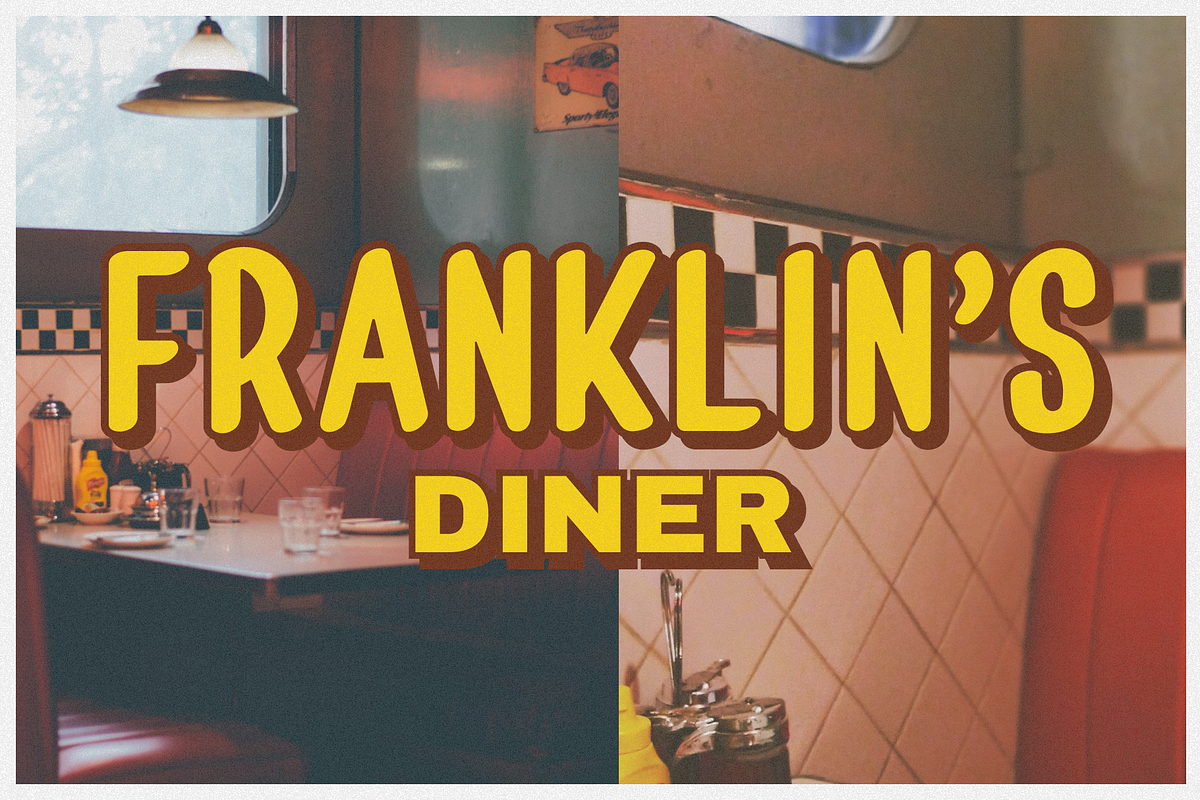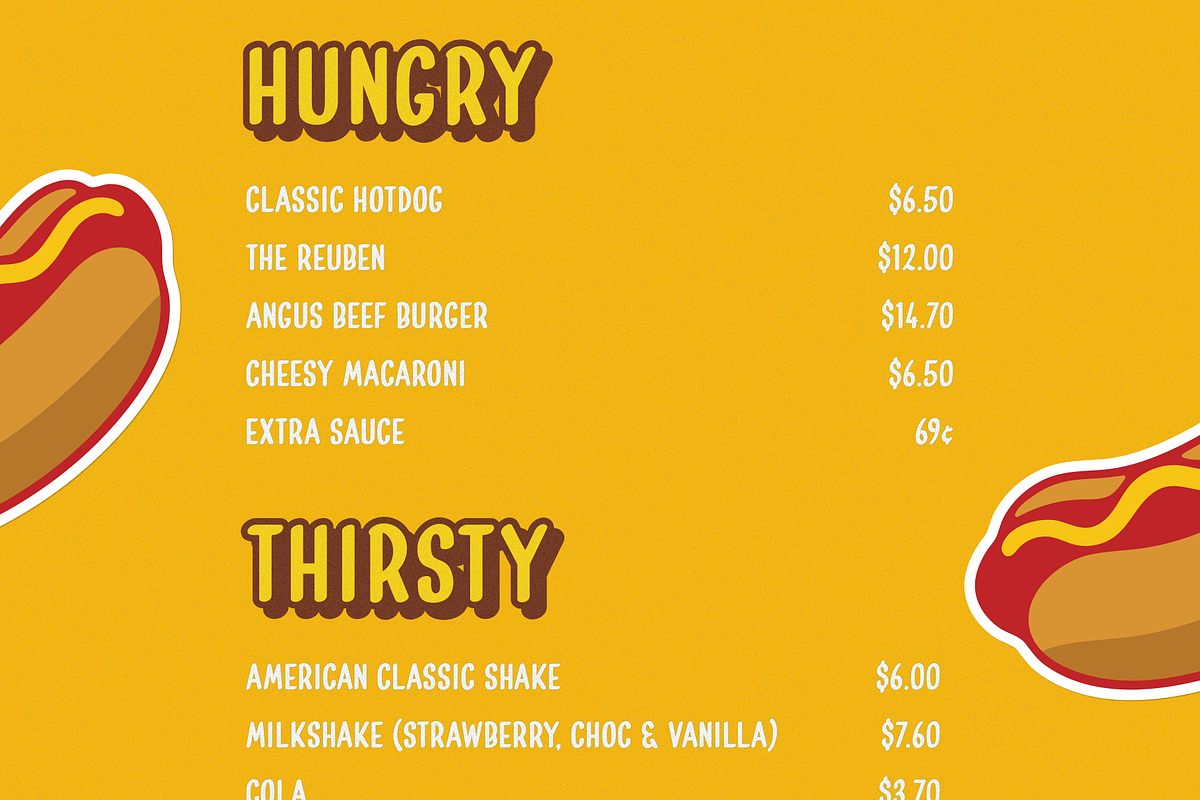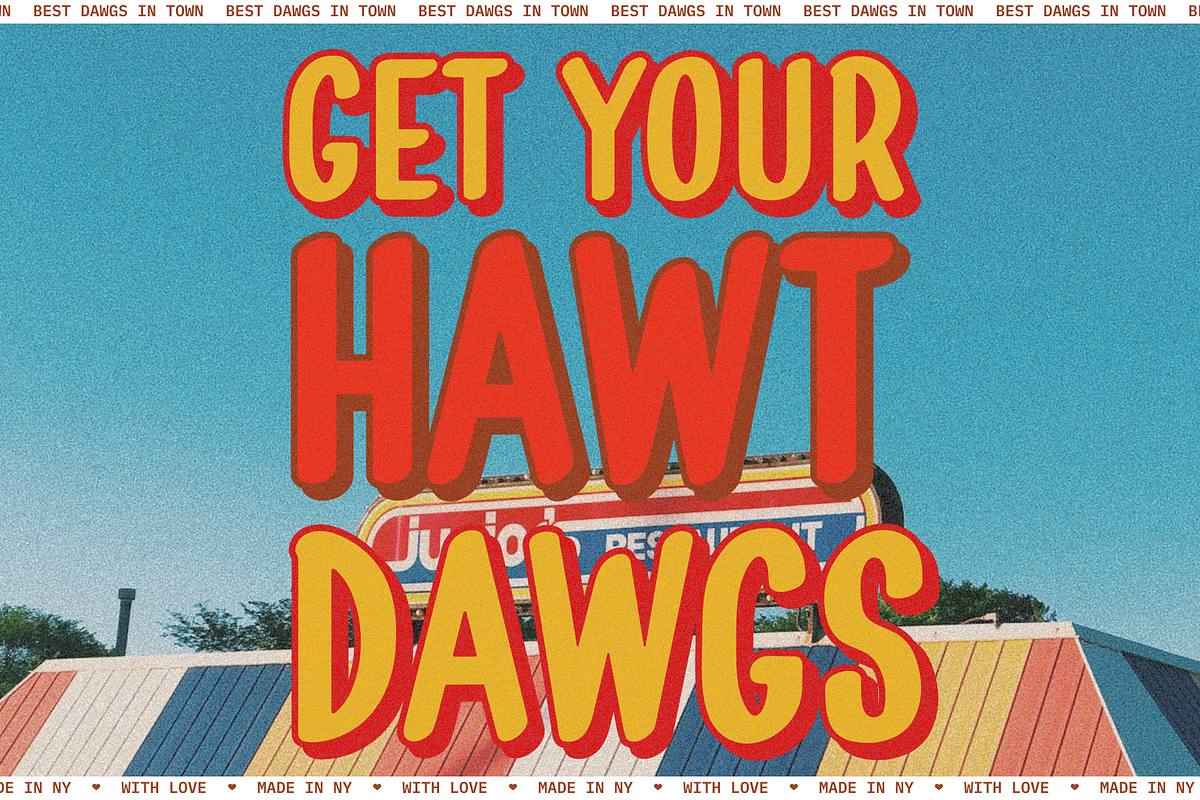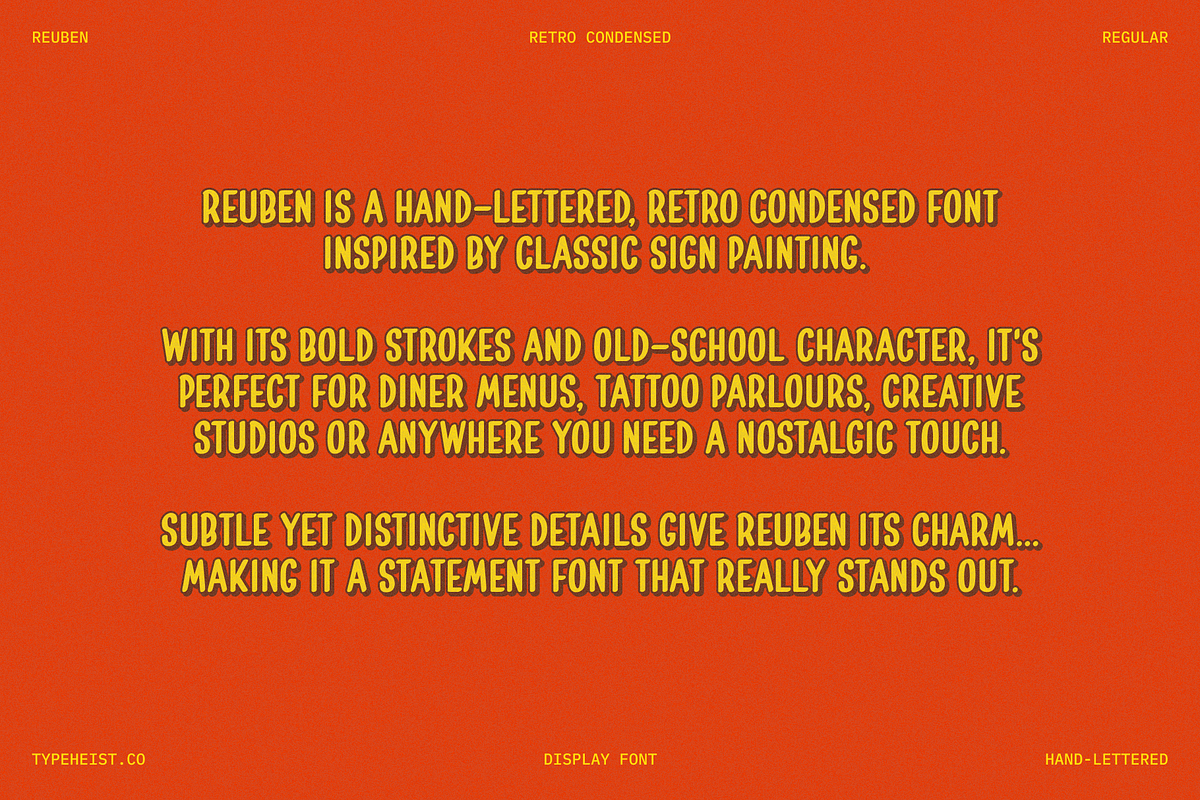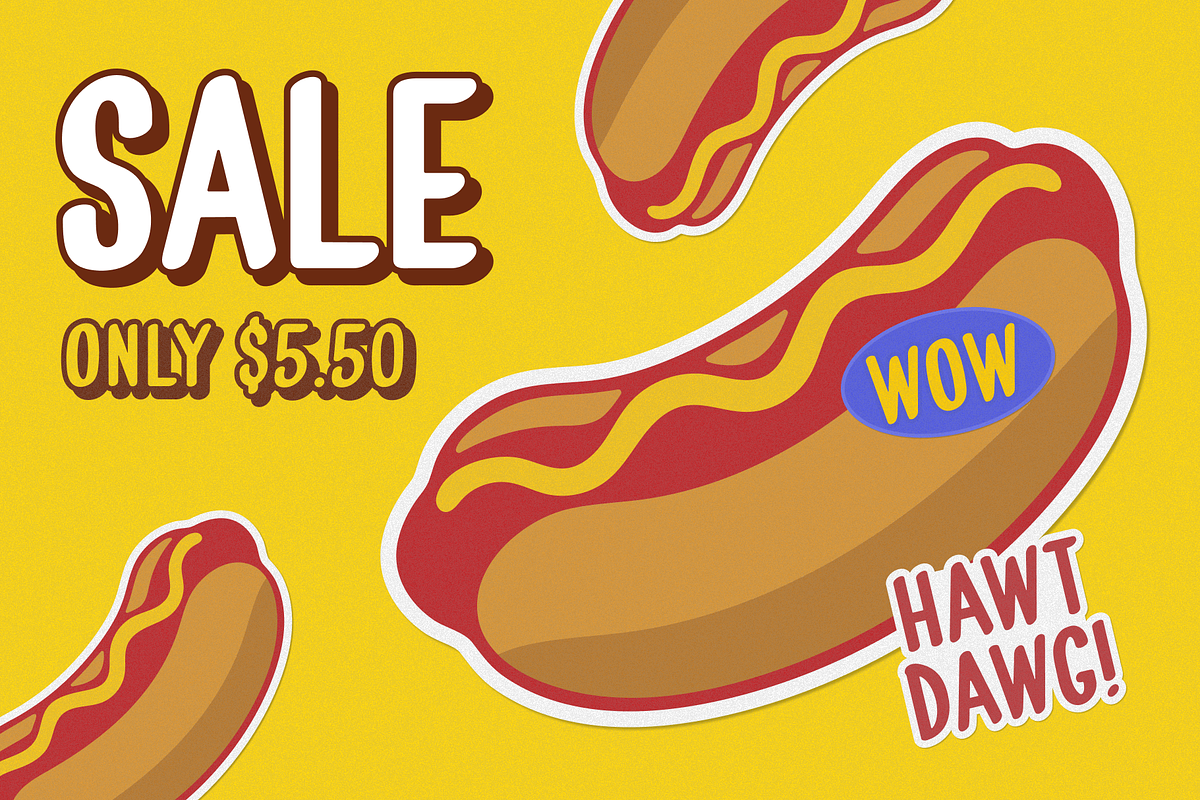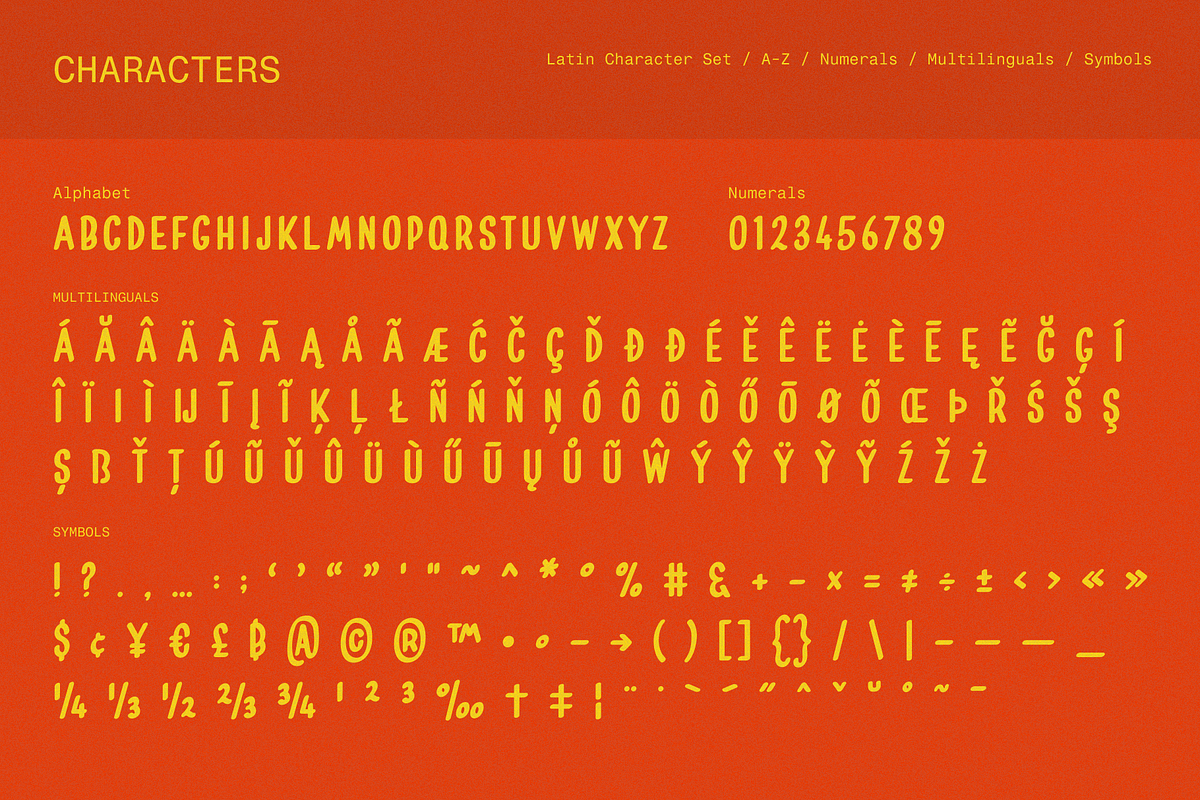
Reuben Retro Condensed Display Font
Reuben is a hand-lettered, retro condensed font inspired by classic sign painting.
With its bold strokes and old-school character, it's perfect for diner menus, tattoo parlours, creative studios or anywhere you need a nostalgic touch.
Subtle yet distinctive details give Reuben its charm... making it a statement font that really stands out.